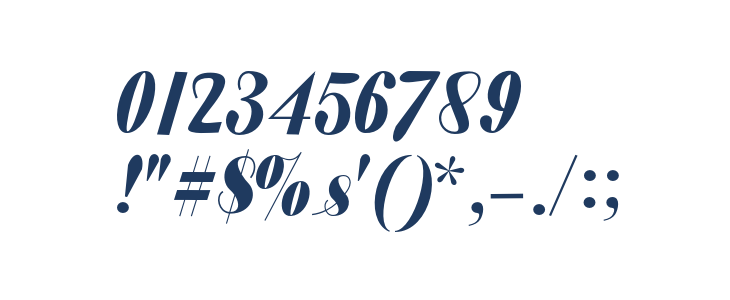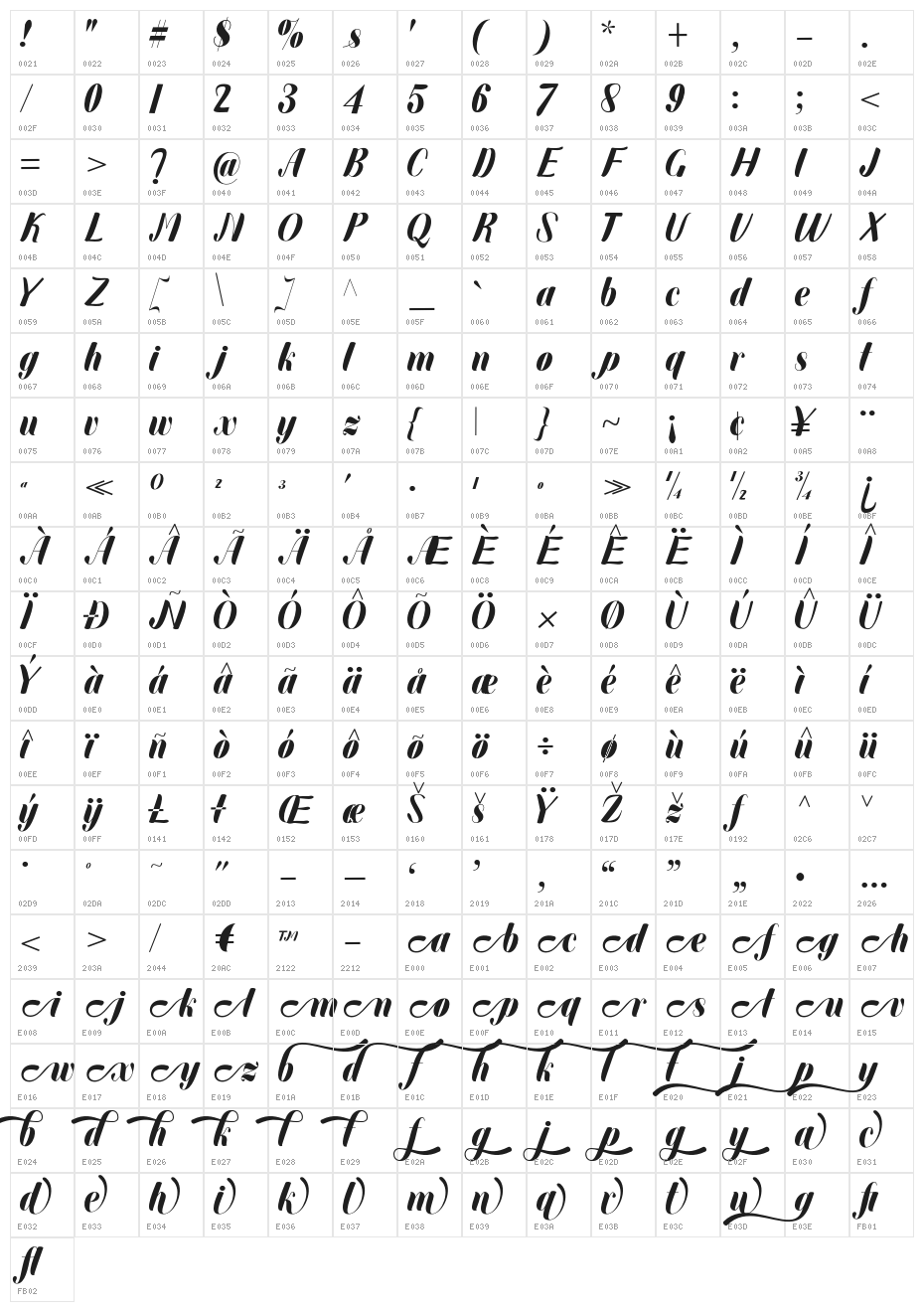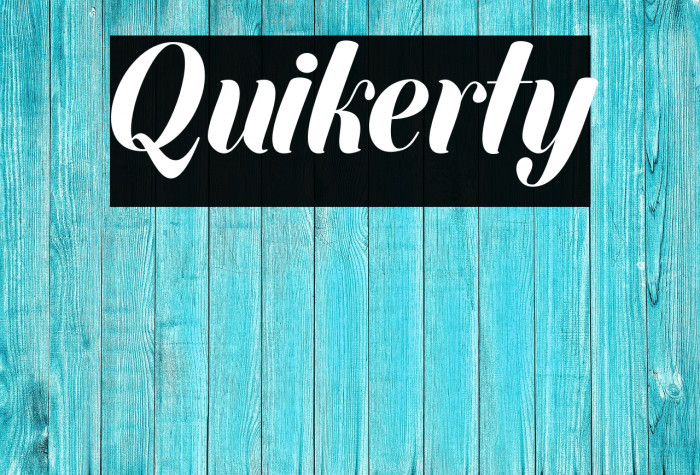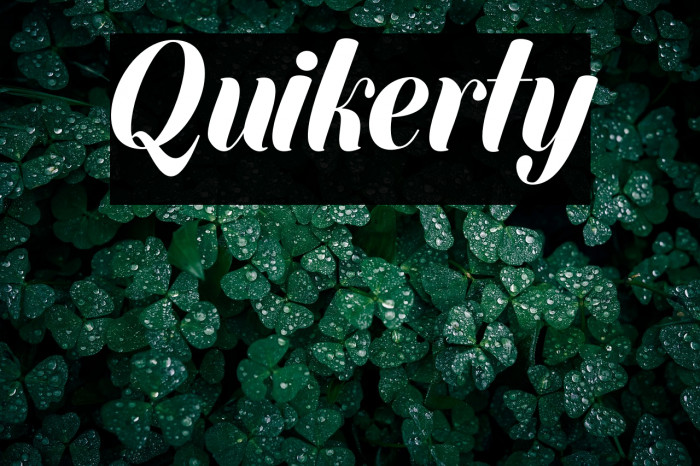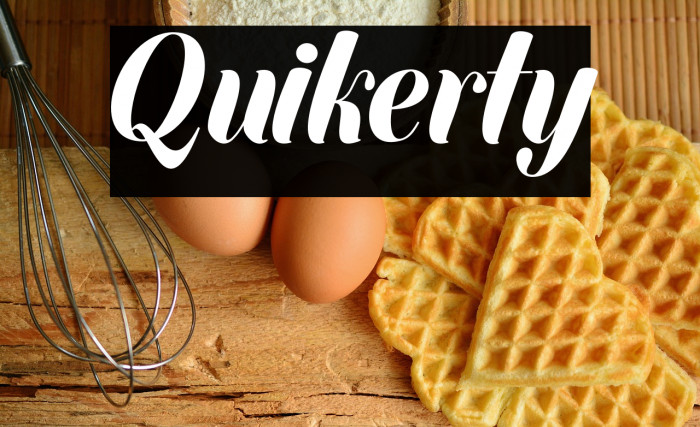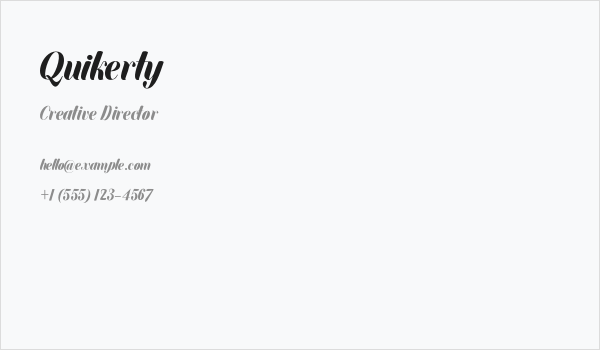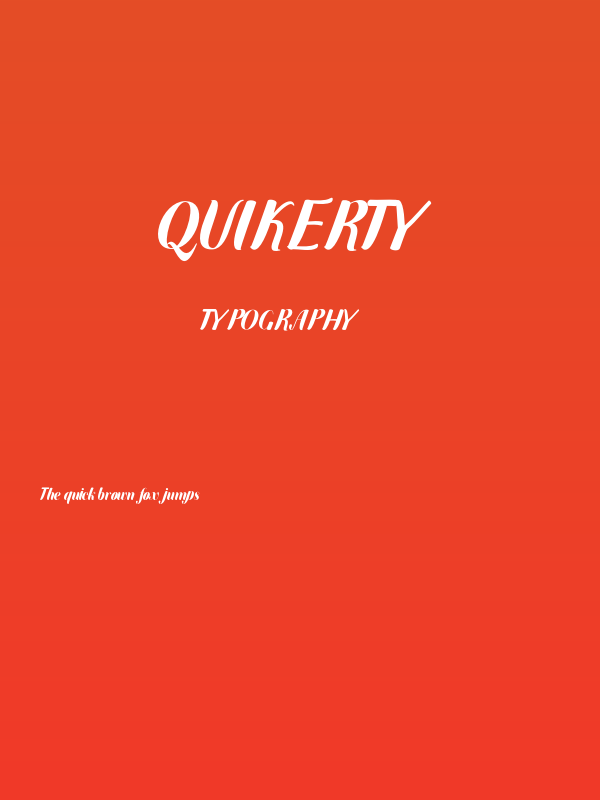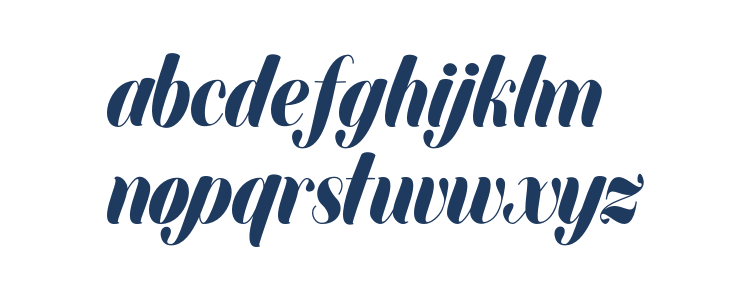
Quikerty Font
Quikerty Description
This font exudes a bold and elegant script style, characterized by its flowing, cursive letterforms. The uppercase letters are tall and graceful, with sweeping curves and a slight slant that adds a sense of movement. The lowercase letters maintain a consistent flow, enhancing readability while retaining a decorative flair. Numbers are bold and slightly condensed, matching the overall style of the alphabet. Special characters are designed with the same attention to detail, ensuring they blend seamlessly with the letters and numbers. This font is perfect for projects that require a touch of sophistication and style.
Overall StyleElegant
Use CaseLogos, Invitations, Branding
Proposed ProjectsIdeal for wedding invitations, luxury branding, elegant signage, and high-end product packaging.